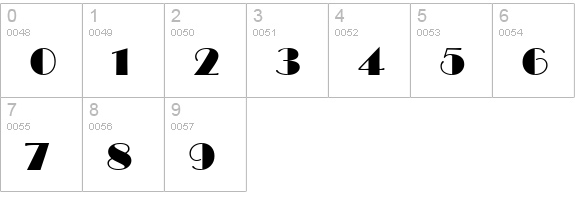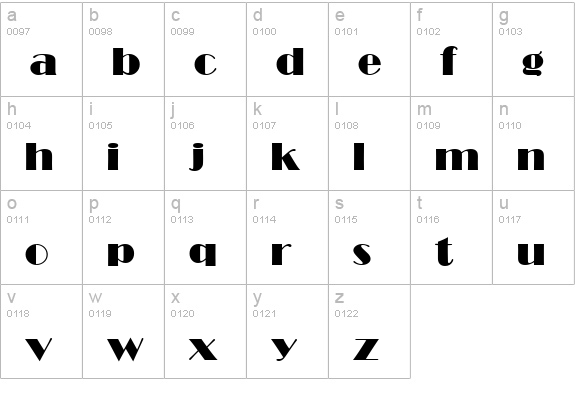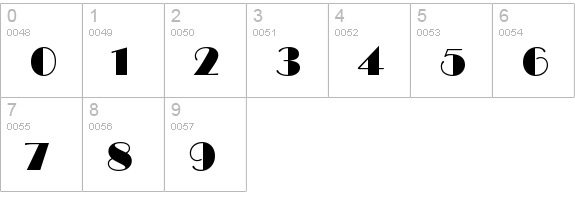
BroadwayP Font Details
BroadwayP font is a sleek and stylish typeface that exudes elegance and sophistication. With its bold and distinctive letterforms, this font is perfect for making a statement in your designs. Whether you are creating posters, invitations, or branding materials, BroadwayP font will add a touch of class to any project. The best part? BroadwayP font is available for free download at FontsMarket.com. So you can add this stunning font to your collection without breaking the bank. Don't miss out on the opportunity to elevate your designs with BroadwayP font today!